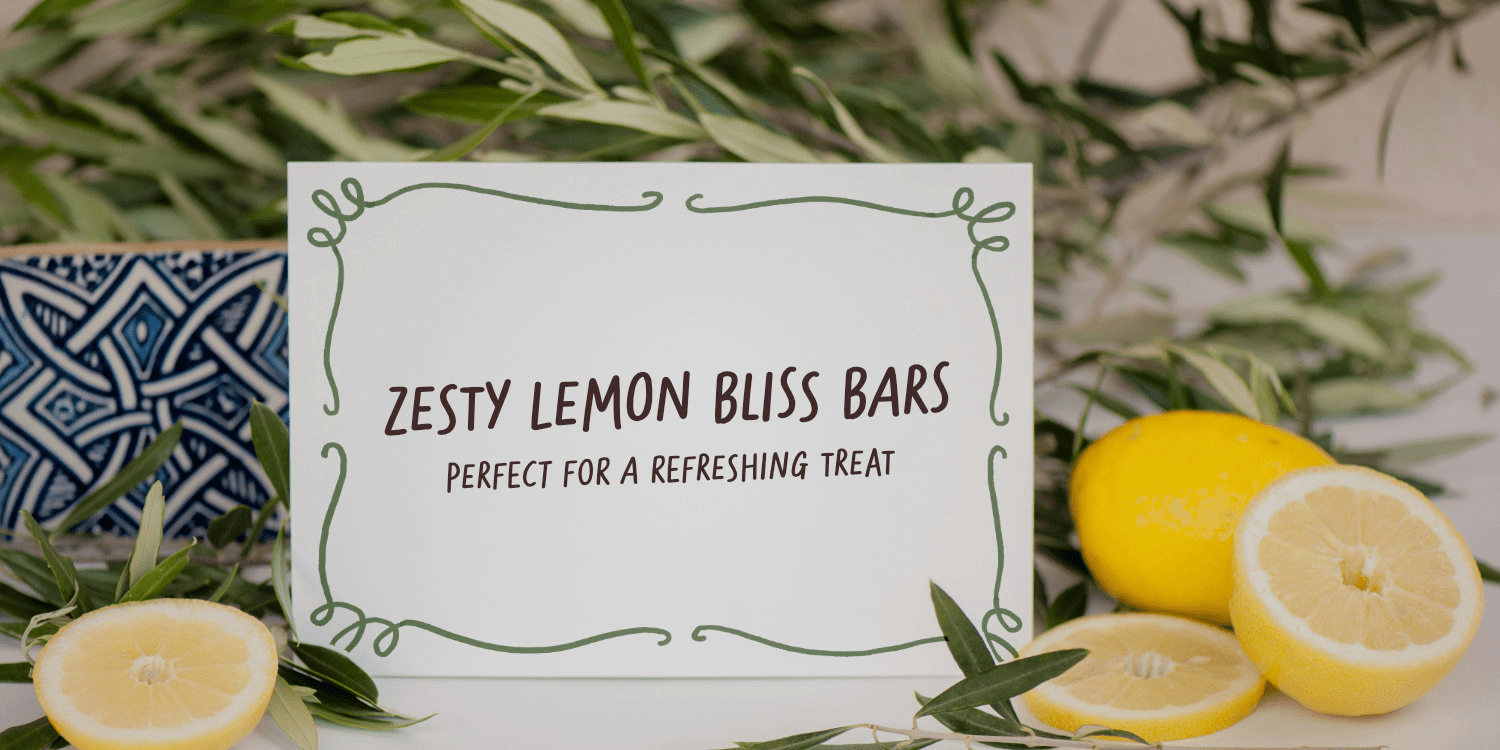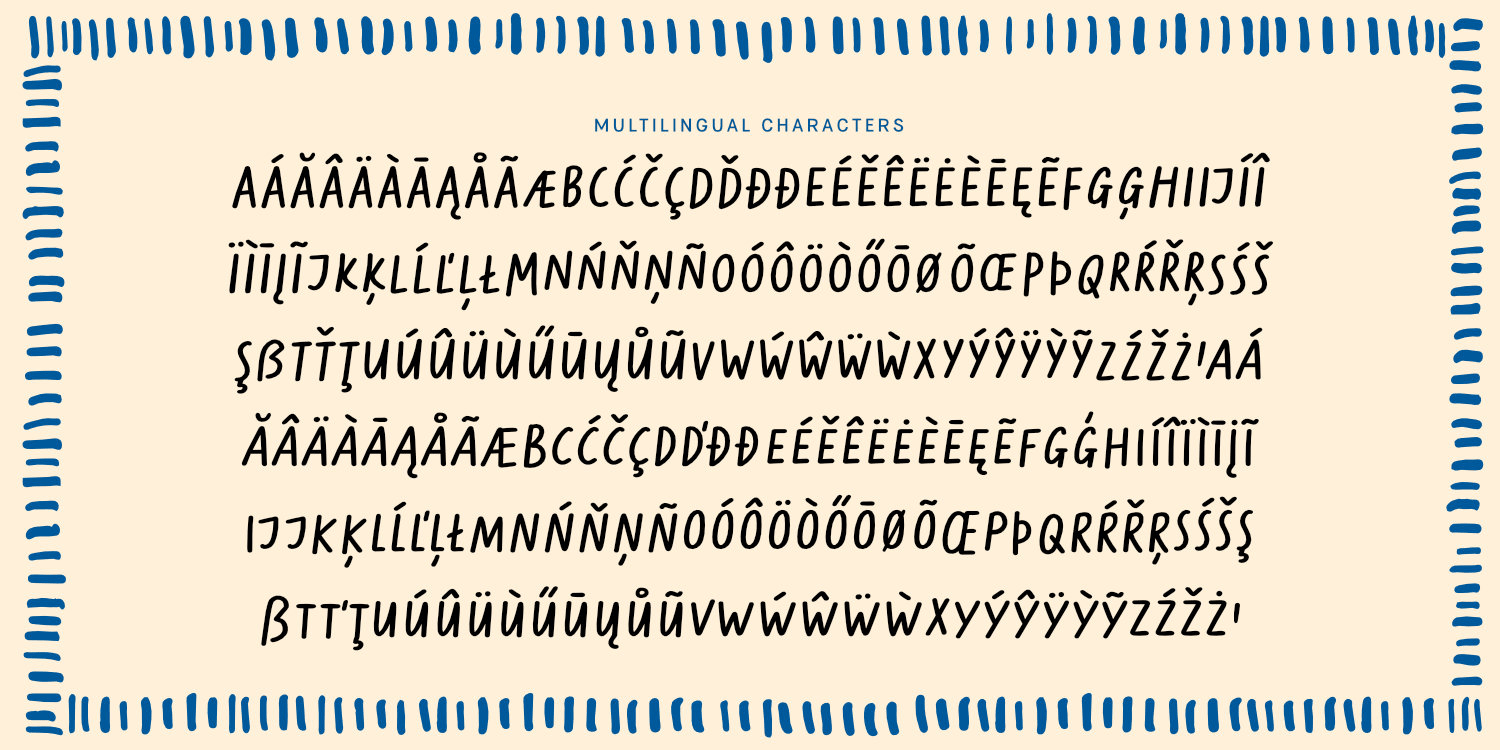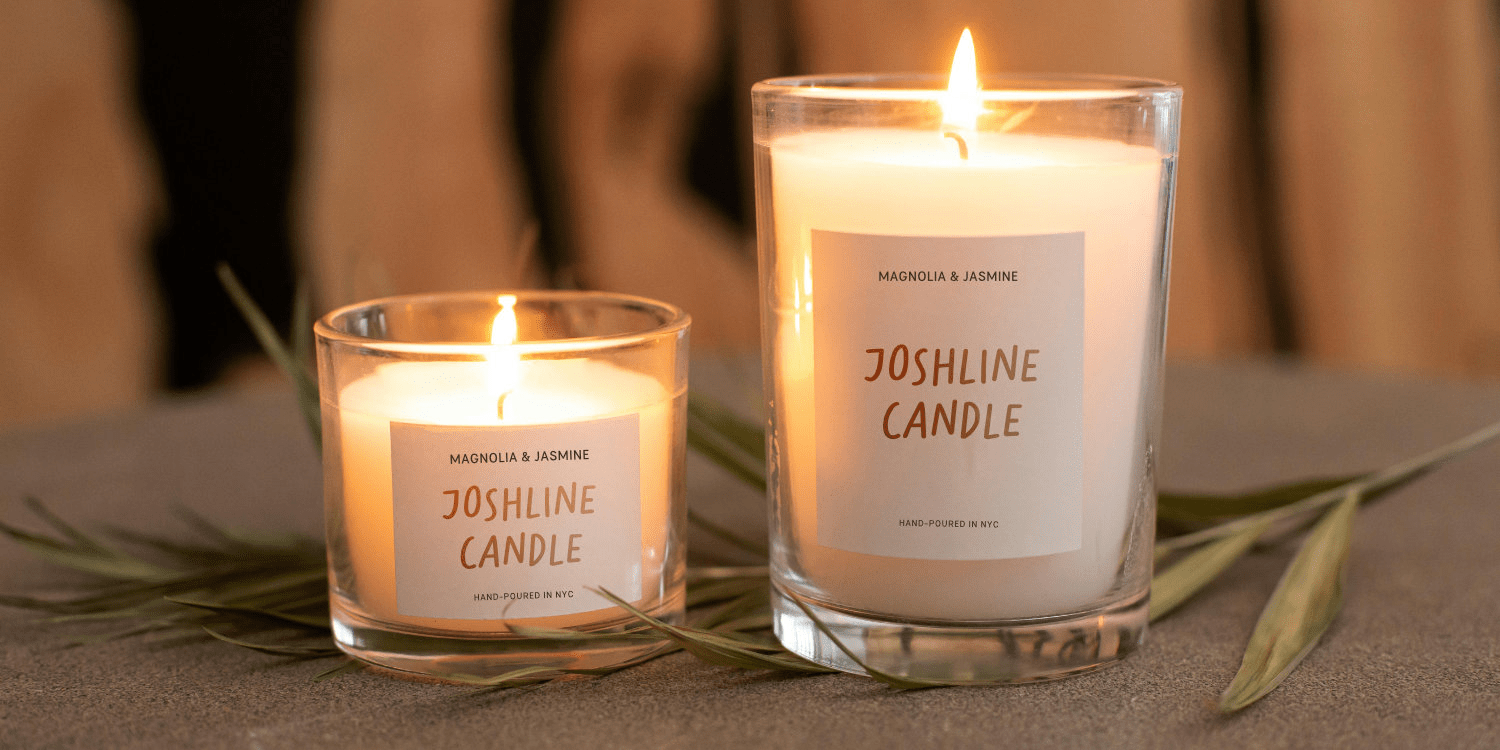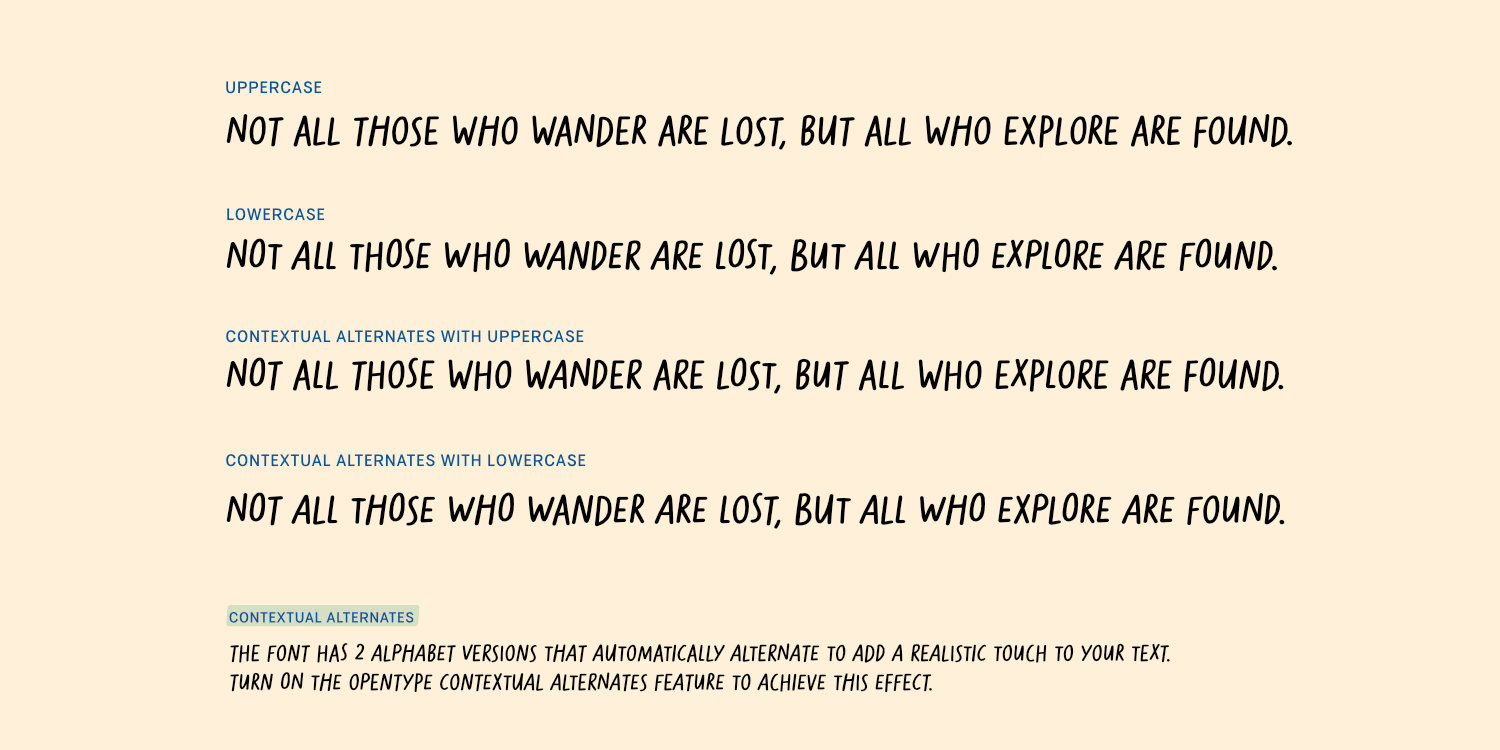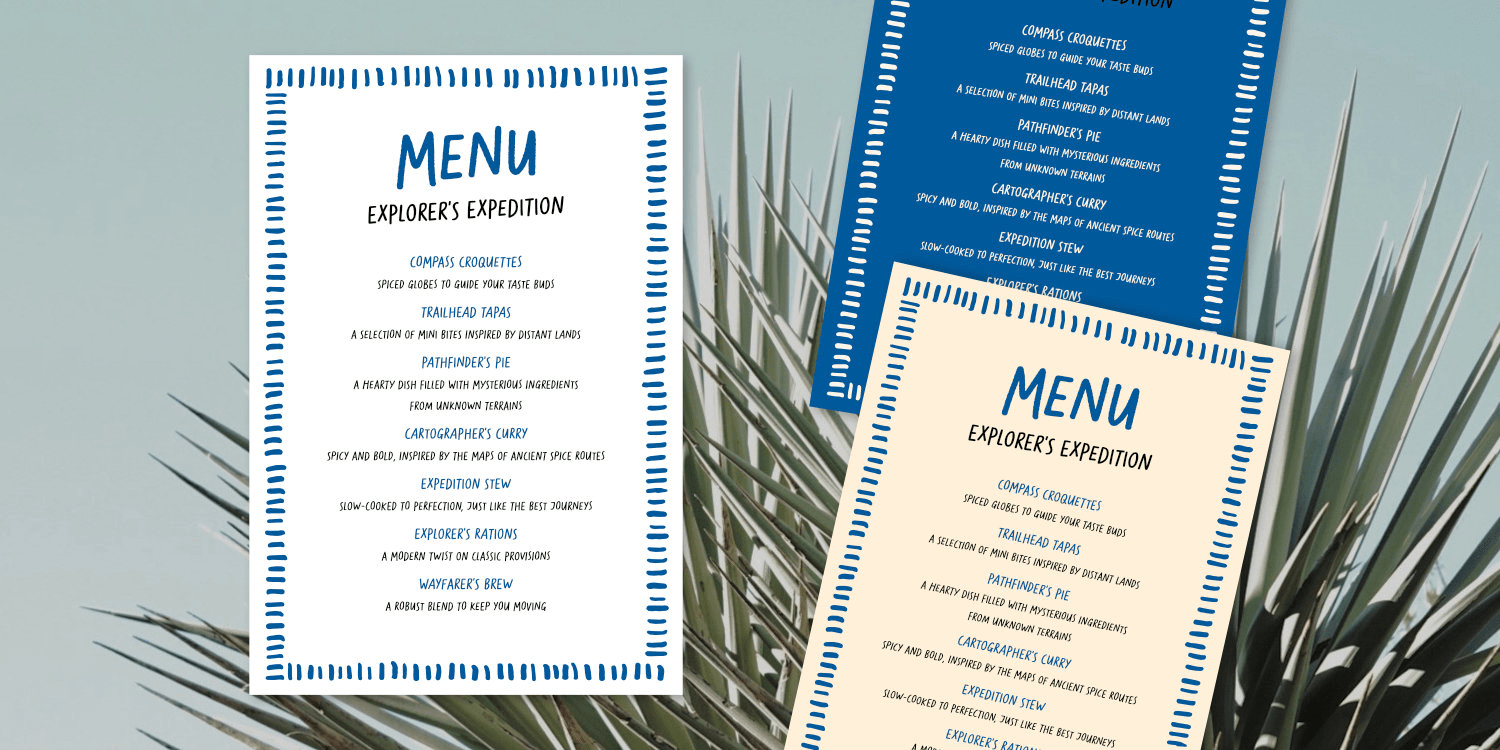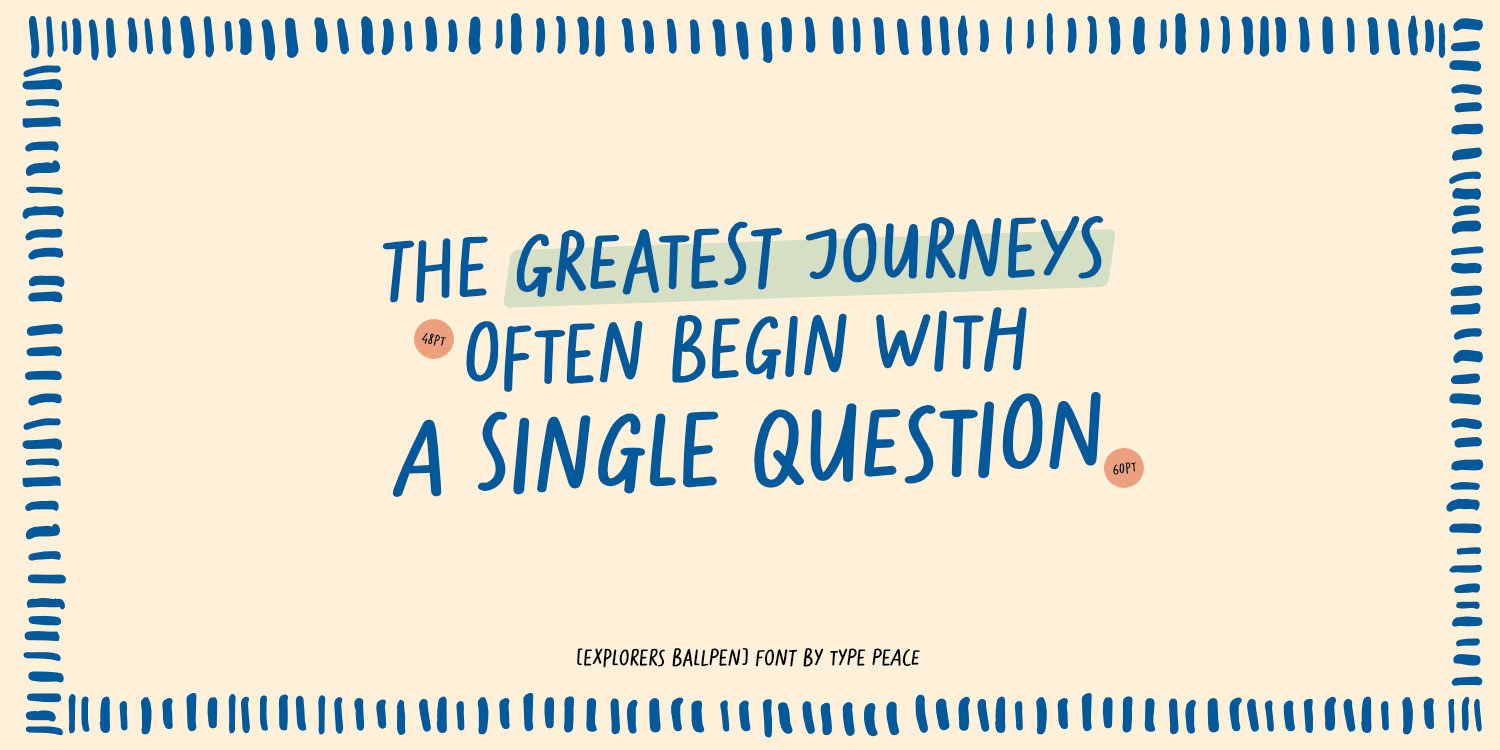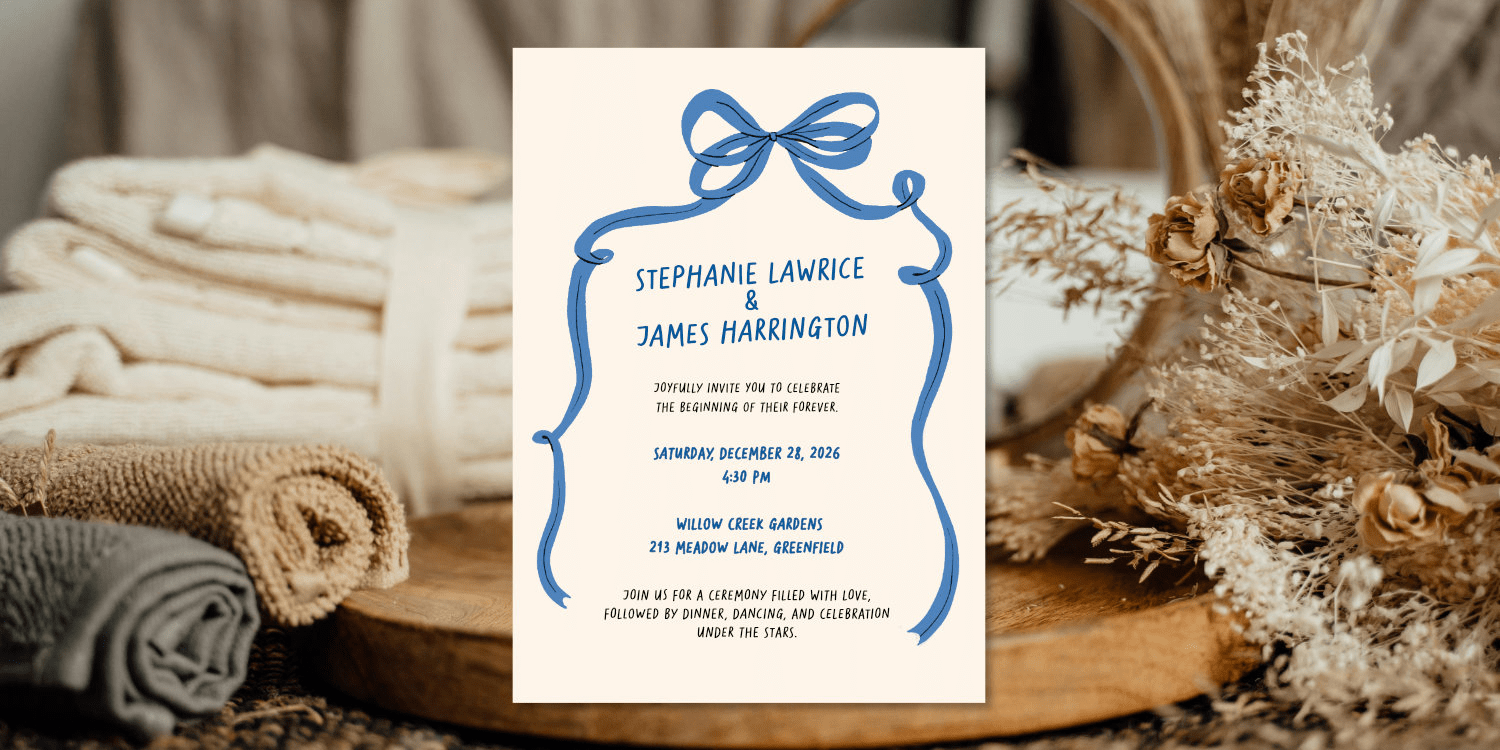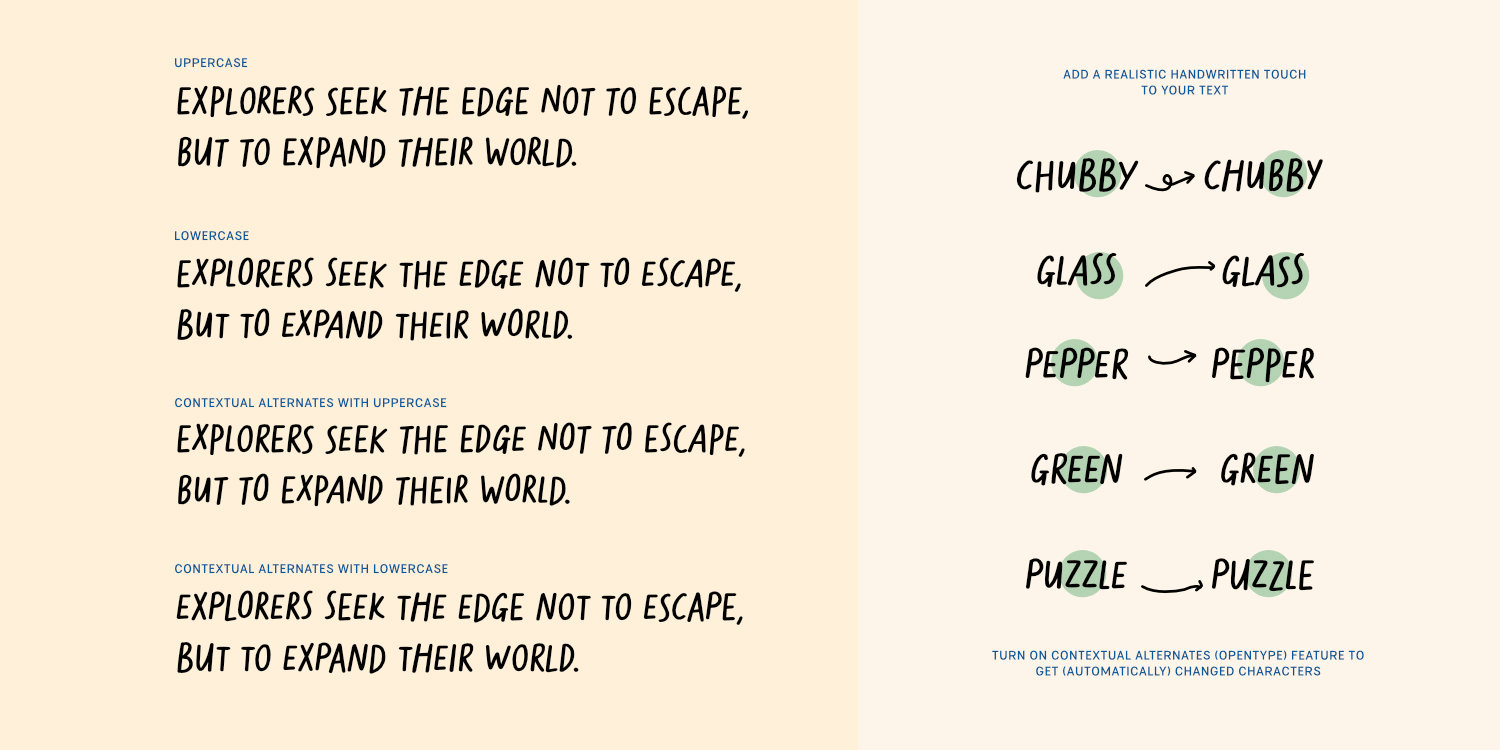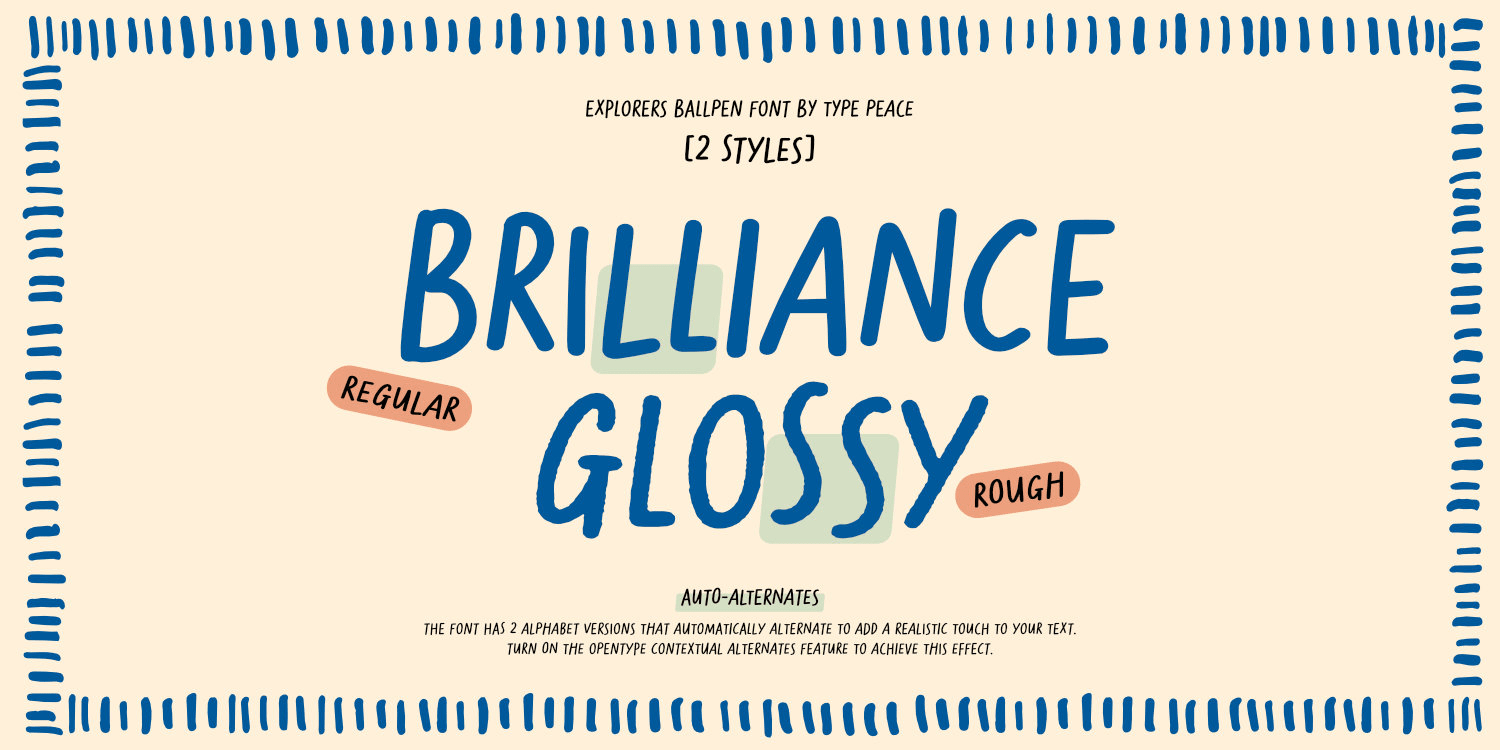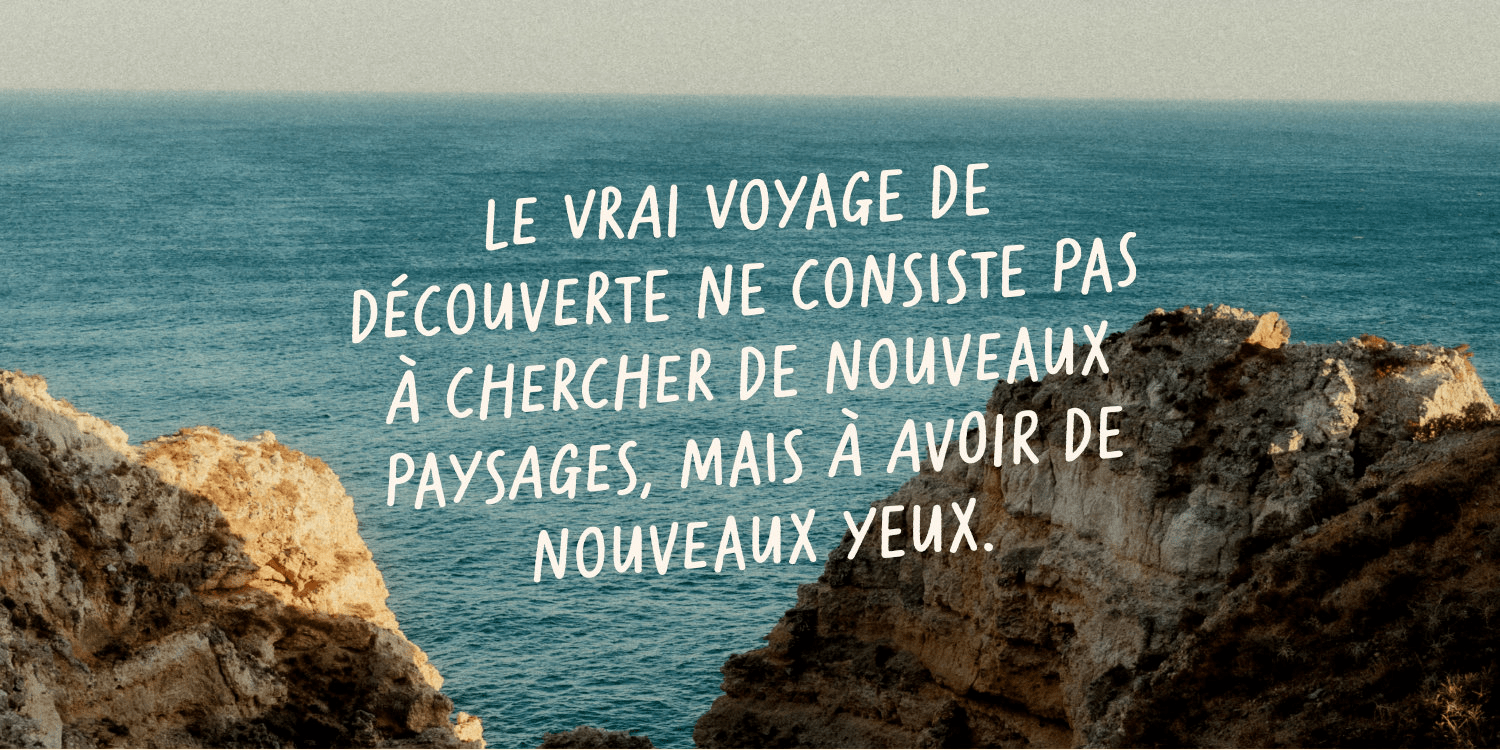
Explorers Ballpen
Font Family by type peace
Explorers Ballpen is a multilingual, all-caps handwritten font that brings the charm of authentic ballpoint pen strokes to your designs. Featuring two styles - Regular and Rough - it offers versatility for both clean and textured looks.
Enable the OpenType Contextual Alternates feature to alternate between different letter versions, giving your text an authentic and realistic handwritten feel.
2 Styles
• Regular
• Rough
Font features:
• All-cap (with uppercase and lowercase alphabets), numbers, punctuations and symbols
• Multilingual support
• Opentype contextual alternates feature
Script: Latin
Supported Languages: English, Western European, Central European, South American